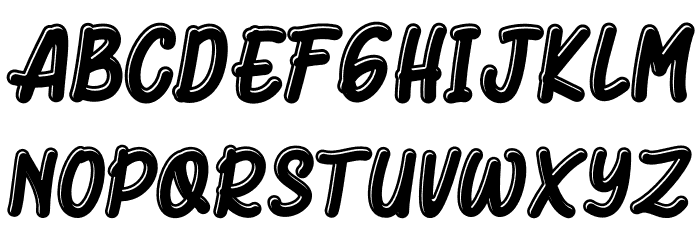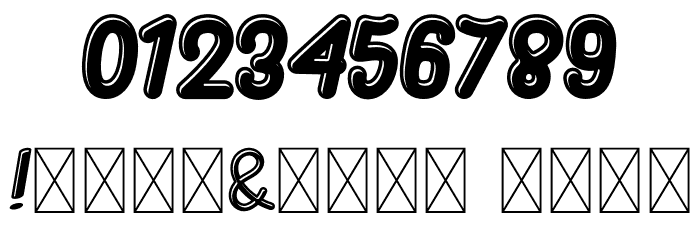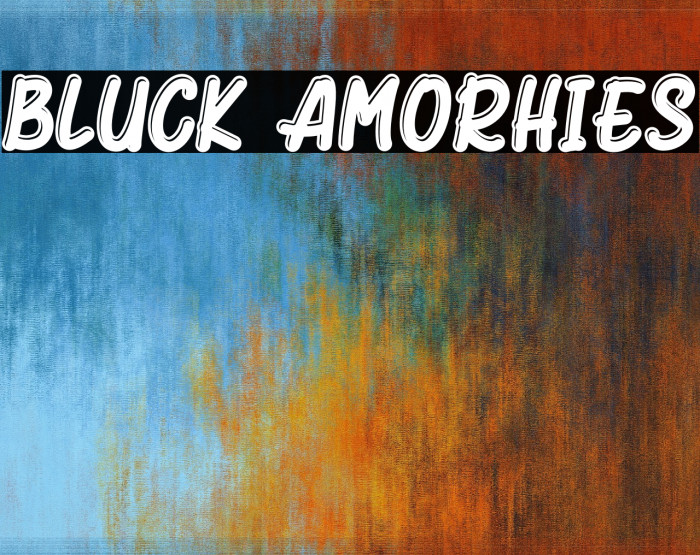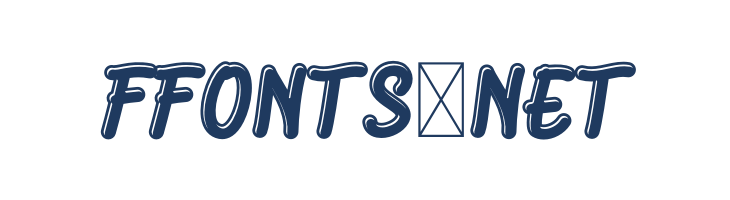
Bluck Amorhies Font
This font features a bold, playful style with a handwritten appearance. The characters are rounded and have a slight slant, giving them a dynamic and energetic feel. The strokes are thick and consistent, providing a strong presence on the page. The uppercase and lowercase letters maintain a uniform style, with the uppercase letters slightly larger and more pronounced. The numbers are equally bold, ensuring they stand out. The special characters are designed to match the overall aesthetic, making them suitable for various creative uses.
A bold, playful handwritten font with rounded, slanted characters.
- Proposed Projects: Ideal for children's book covers, playful branding, greeting cards, and social media graphics.
- Overall Style: Playful